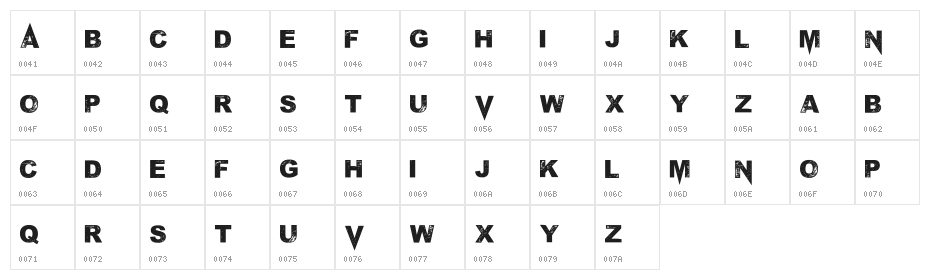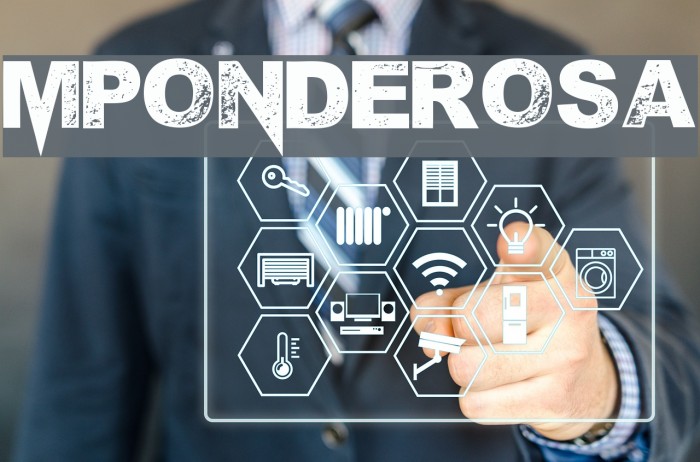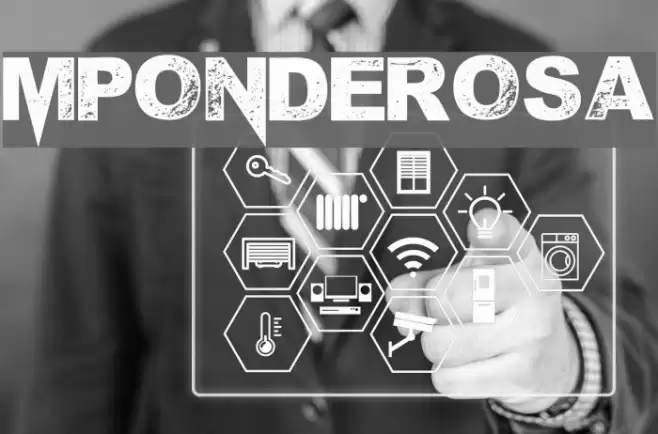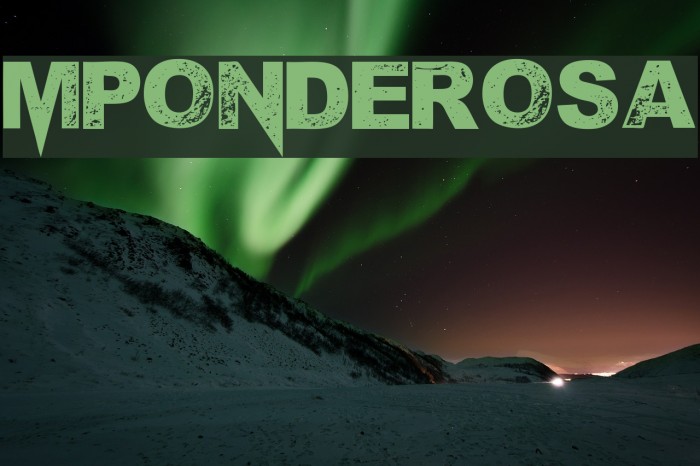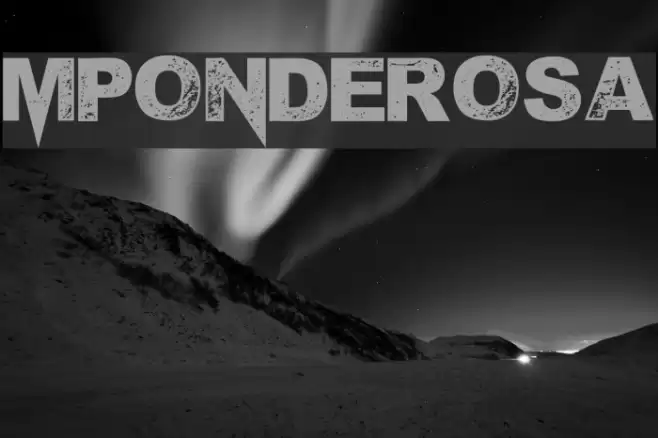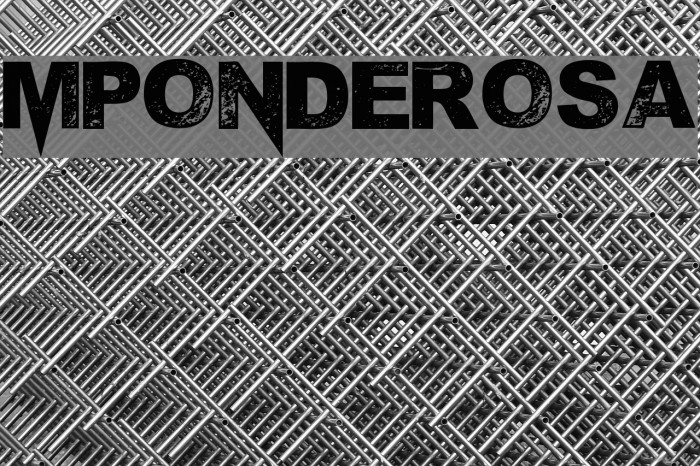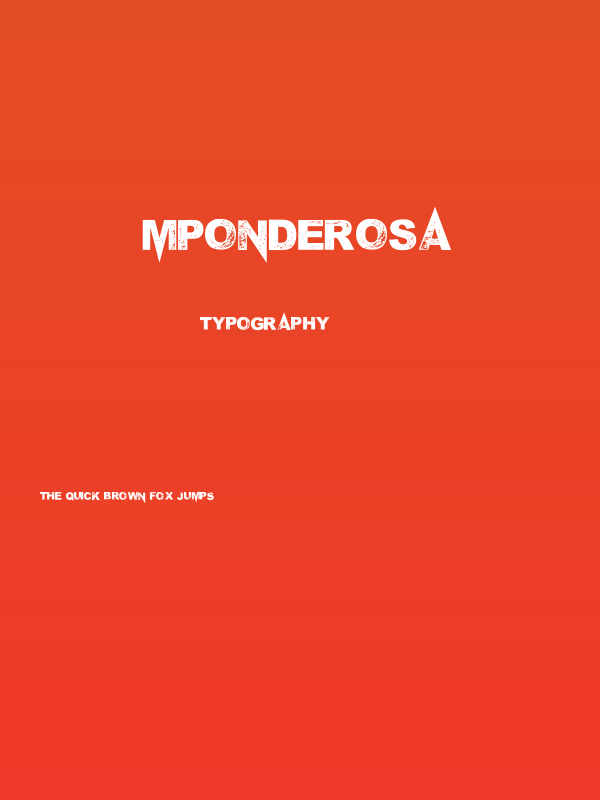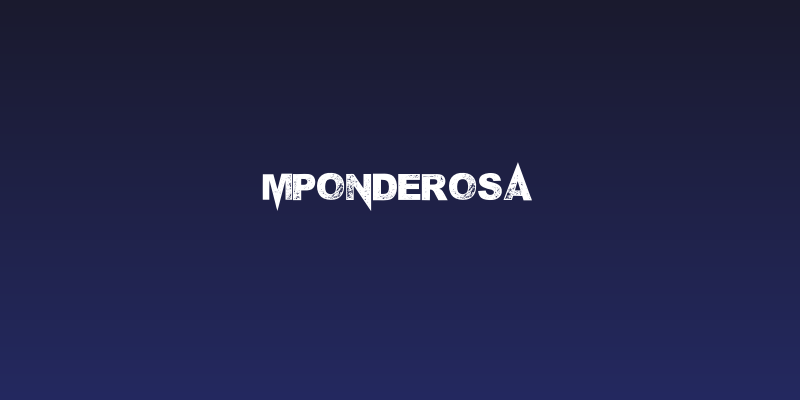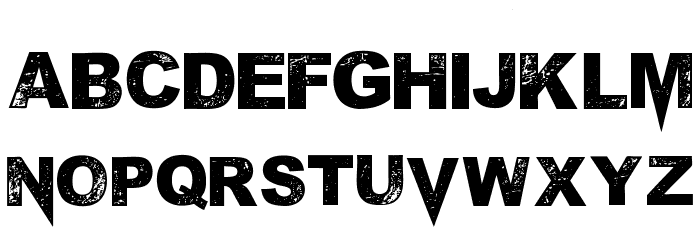
MPonderosa Font
MPonderosa Description
This font features a bold, distressed style with a textured appearance that gives it a rugged, vintage look. The uppercase letters are prominent and impactful, making them suitable for attention-grabbing headlines. The characters are evenly spaced, maintaining a consistent alignment that enhances readability despite the distressed effect. The overall design is reminiscent of old-school print techniques, adding a nostalgic touch to any project. Its boldness and unique texture make it ideal for designs that require a strong visual presence.
| Proposed Projects | Ideal for vintage-themed posters, branding, logos, and apparel design. |